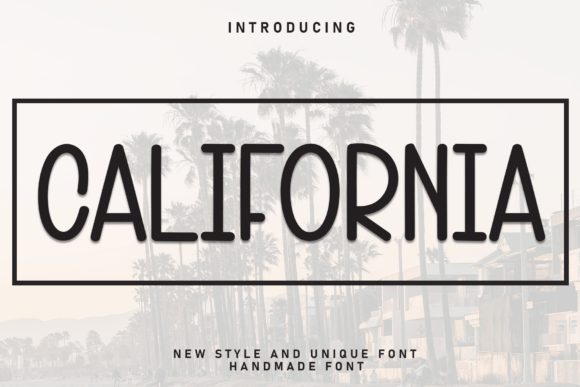
Discovering the Perfect Typographic Match for Your West Coast Vibe
As a designer, have you ever found yourself struggling to convey the carefree essence of a brand or project in a single font? Maybe you’ve scrolled through countless options, only to end up with a choice that feels, well, just okay? I’ve been there too.
That’s why I’m excited to introduce you to California Font – a clean, modern display font that embodies the warmth and approachability of the Golden State. With its simple yet elegant design, this font is perfect for adding a touch of personality to your branding, packaging, or digital content. Whether you’re looking to evoke the laid-back vibes of California or simply want a font that’s easy on the eyes, California Font is a valuable addition to any designer’s toolkit.
California Font Key Features
- Font Family: California, California Light, California Bold, California Italic, and California Bold Italic
- Unique Characteristics: Designed to evoke the feel of classic California typography, with a modern twist; features a clean, elegant, and highly legible design
- Language Support: Supports a wide range of languages, including Latin-based languages, Cyrillic, and Greek
California Font Review
As a designer, I was excited to dive into the California Font and see if it would bring a touch of West Coast vibes to my projects. ✨ One of the things that really works well with this font is its playful, approachable feel. It’s perfect for branding and marketing materials that need to convey a sense of fun and relaxation.
Some of the key features that make California Font stand out include:
- Its unique letterforms, which add a touch of personality to text
- Its wide range of weights and styles, making it easy to find the perfect fit for your project
- Its great legibility, even at smaller font sizes
However, there are a few limitations to consider ⚠️:
- The font can feel a bit overused, particularly in digital design
- It may not be the best choice for complex or technical writing
- Some users may find the font’s quirks and irregularities distracting
Overall, I’d give California Font 4 out of 5 stars. While it’s not perfect, it’s a great choice for projects that need a fun, laid-back feel. Just be sure to use it thoughtfully and in moderation to avoid overusing it.
For optimal results, use the font in headings or titles, as it is designed to be eye-catching and attention-grabbing. Avoid using it for large blocks of text, as it may become overwhelming.
When using California Font in presentations or documents, use it sparingly to add emphasis and visual interest. Avoid overusing it, as it may become distracting.
California Font is ideal for:
– Social media graphics and advertisements
– Branding and logo design
– Event invitations and promotional materials
– Headings and titles in presentations and documents
Alternatives to California Font
Great Vibes is a modern, cursive script font that conveys a sense of relaxation and casualness. It’s ideal for use in titles, headings, and body text where a friendly and approachable tone is desired.
Compared to California Font, Great Vibes has a more relaxed and casual feel, with a more open and airy design. While California Font is more suited for formal or professional applications, Great Vibes excels in casual and creative contexts.
Pacifico is a beautiful, elegant script font that exudes a sense of sophistication and refinement. It’s perfect for use in titles, headings, and body text where a high-end and luxurious feel is desired.
Compared to California Font, Pacifico has a more refined and sophisticated feel, with a more streamlined and polished design. While California Font is more suited for casual and creative applications, Pacifico excels in formal and professional contexts.